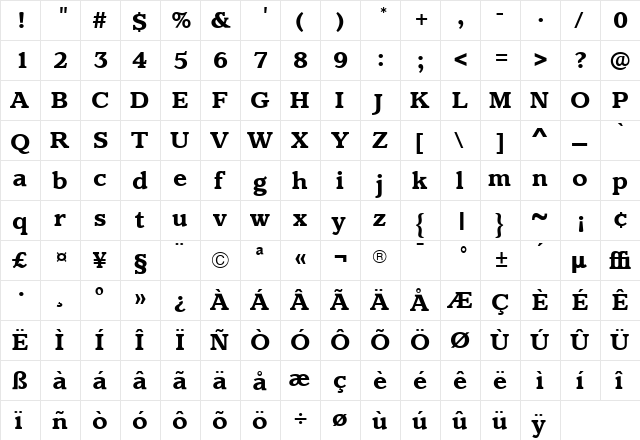
ClaremontBold Roman
Design Context for ClaremontBold Typeface
ClaremontBold is a composed and adaptable typeface that performs quietly and consistently across a wide range of design contexts. The heavy weight commands attention and anchors typographic hierarchies.